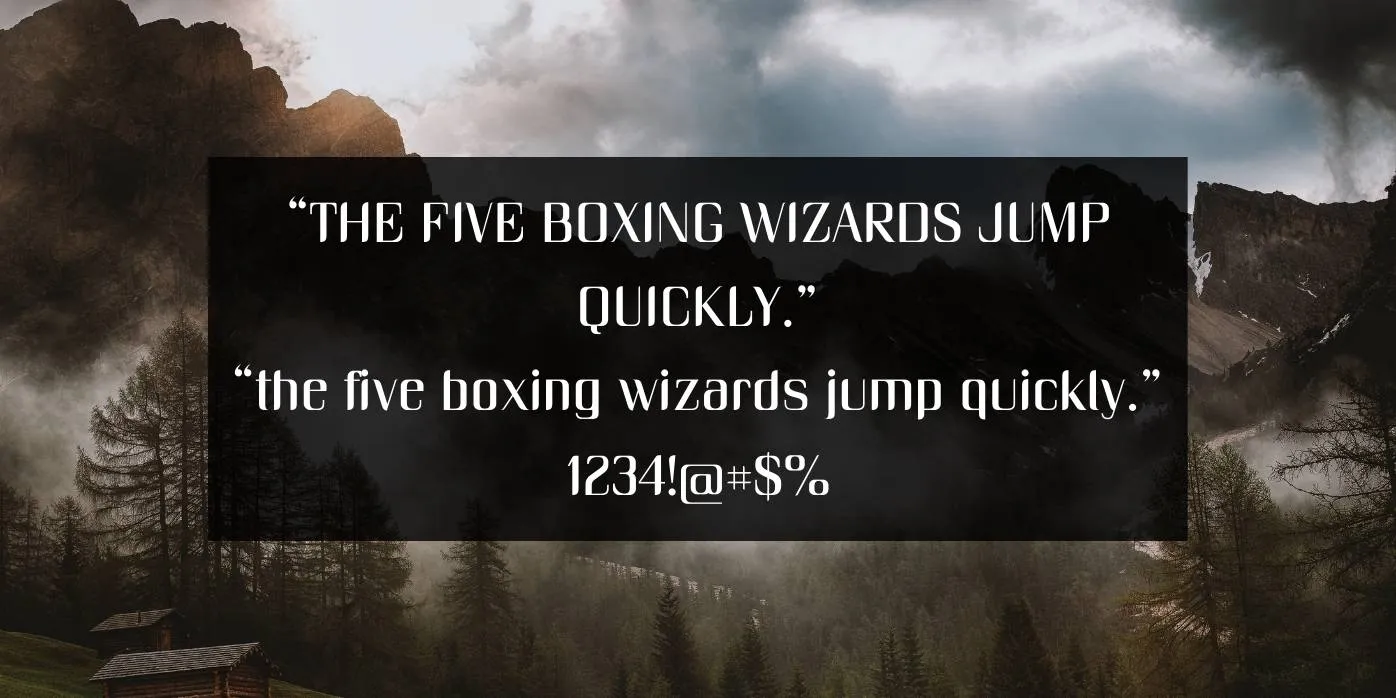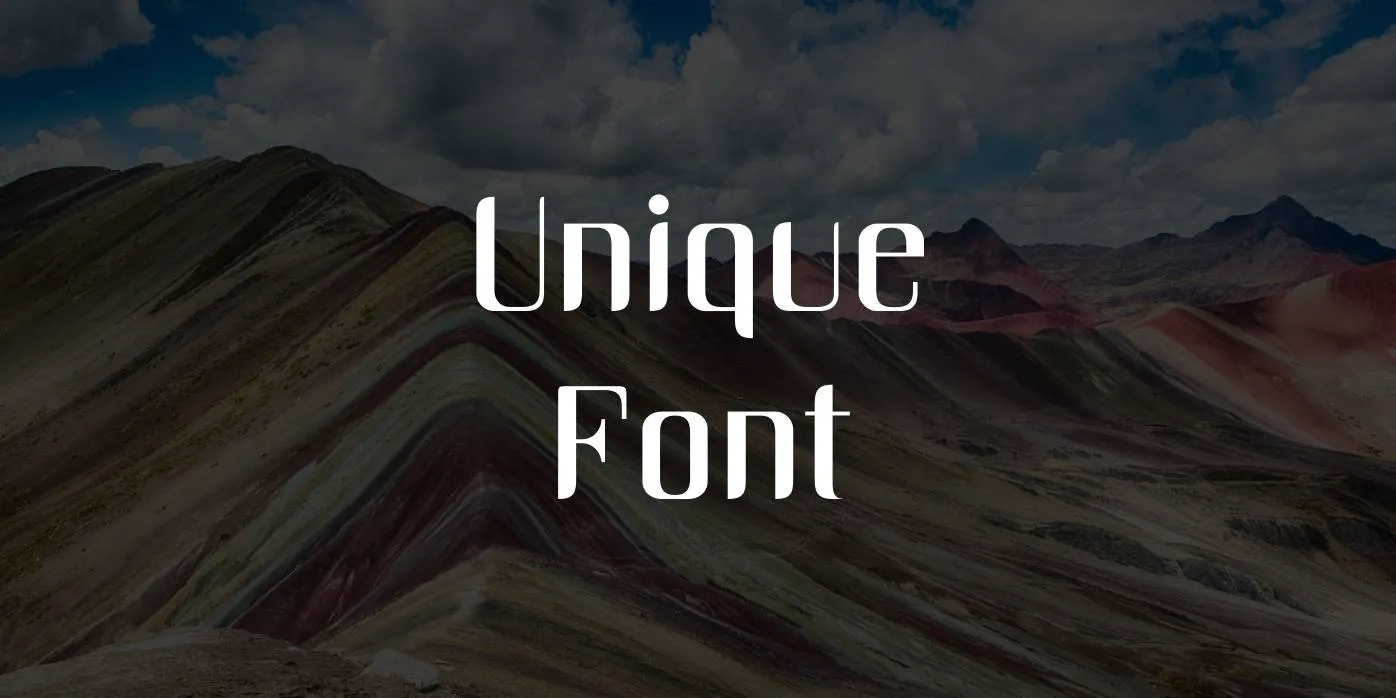
Unique Font
In this post, we introduce a stunning typeface known as Unique Font. This awesome typeface belongs to the display family. It will give an elegant look to your text. This font was created by a famous designer named Jovanny Lemonad.
This beautiful typeface is available in two different styles including Regular and Bold. You can use this typeface for both personal and commercial purposes. This easy-to-use typeface comes in TTF format. The copy and paste function of this is very attractive.
For more classic features, you will have to use its alternative supreme font which has the same features. If you are looking for a unique font then this is the best option for you. This typeface is perfect for headlines, posters, and titles. This staggering typeface includes different characters and glyphs.